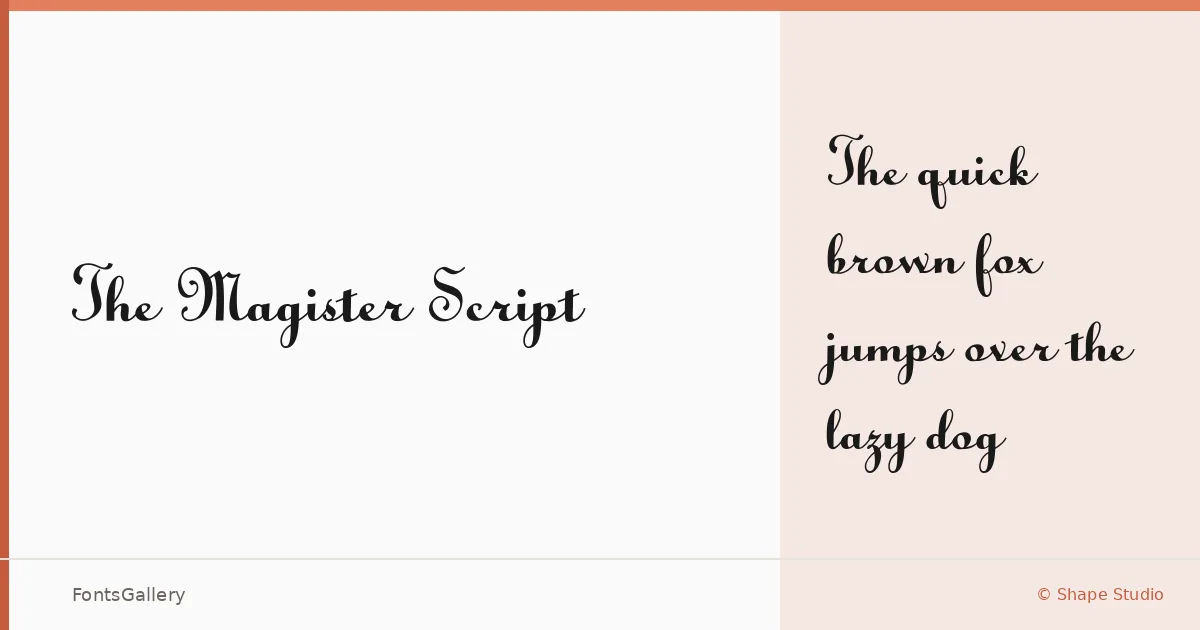
About The Magister Script Font
There is a particular quality to this script — a steady, unhurried flow through each letterform that reads less like handwriting dashed off quickly and more like calligraphy set with intention. Released by Shape Studio, it arrives as a single Regular weight in both TTF and OTF formats, which keeps the offering focused and the choice simple.
The mood here sits firmly in classic, romantic elegance — the kind of script that carries weight even at small sizes because the strokes have genuine contrast and the connections between letters feel considered rather than automatic. It covers the Latin writing system, so its natural home is English-language work and other Latin-script languages. The single cut is no liability; scripts like this earn their place through refinement, not range.
Wedding invitations, certificates, greeting cards, and luxury brand logos are exactly the territory where this face does its best work — anywhere the writing itself needs to signal occasion and care. It pairs well with Canela for an editorial luxury feel, sits cleanly alongside Helvetica or Asap when you need a neutral sans to handle body copy, and works with ABC Arizona or Adobe Caslon Pro when the surrounding text calls for something with its own typographic character.